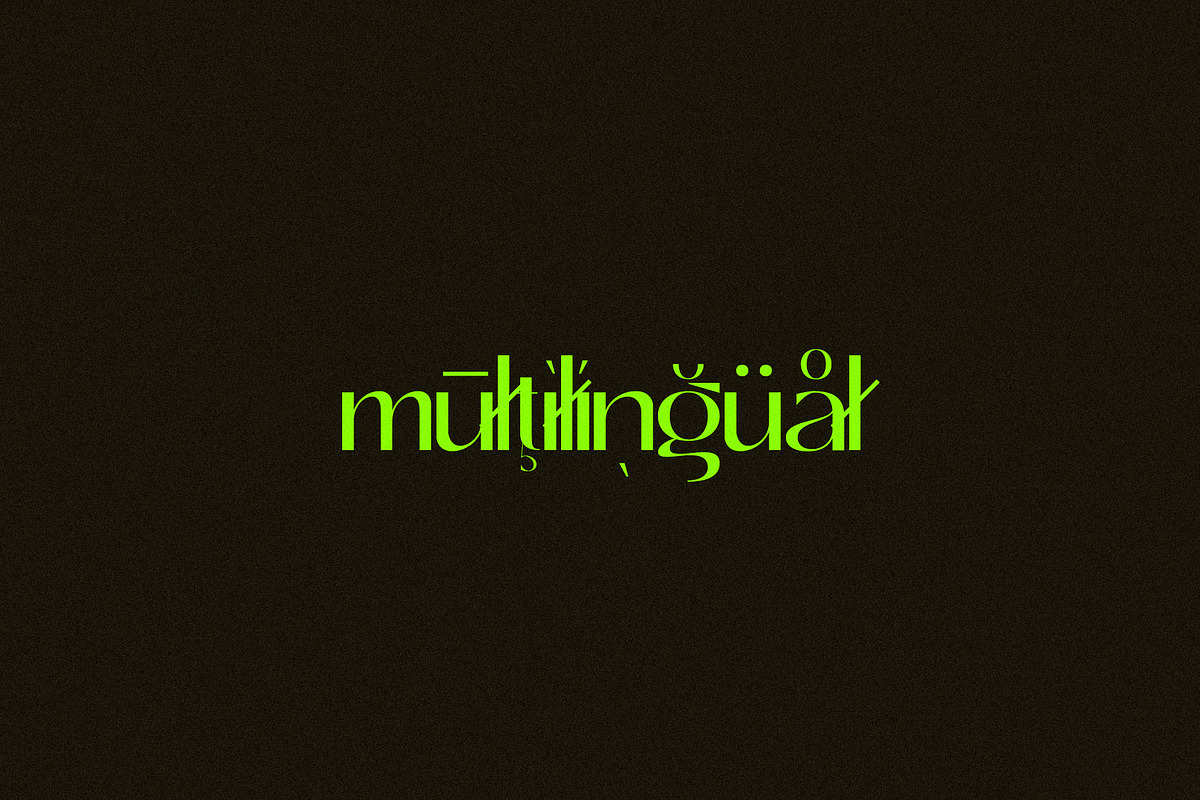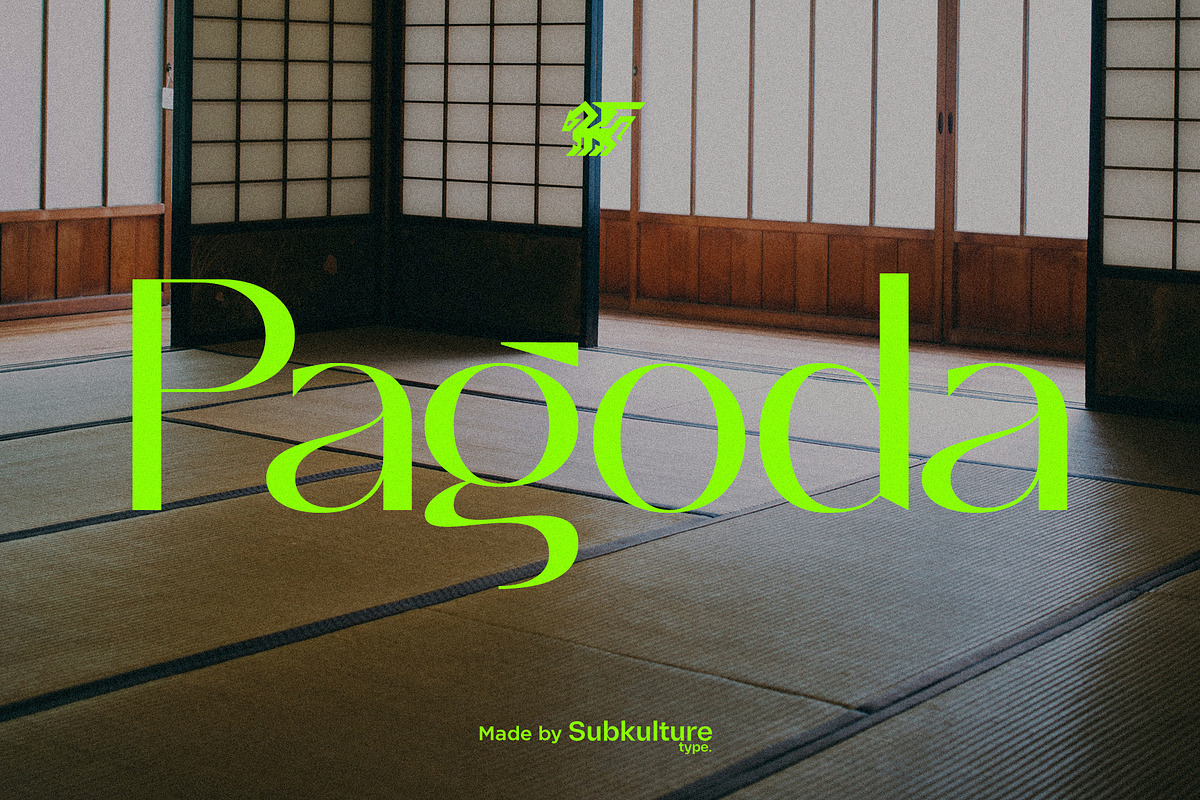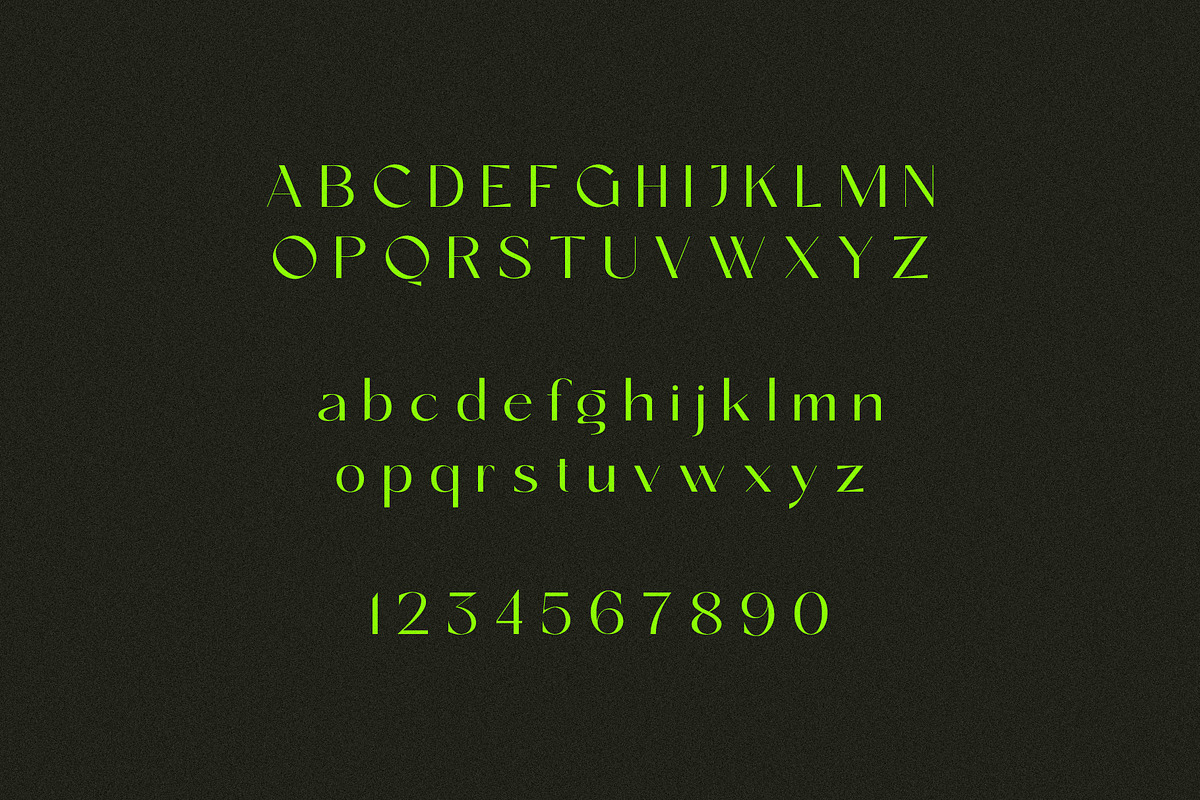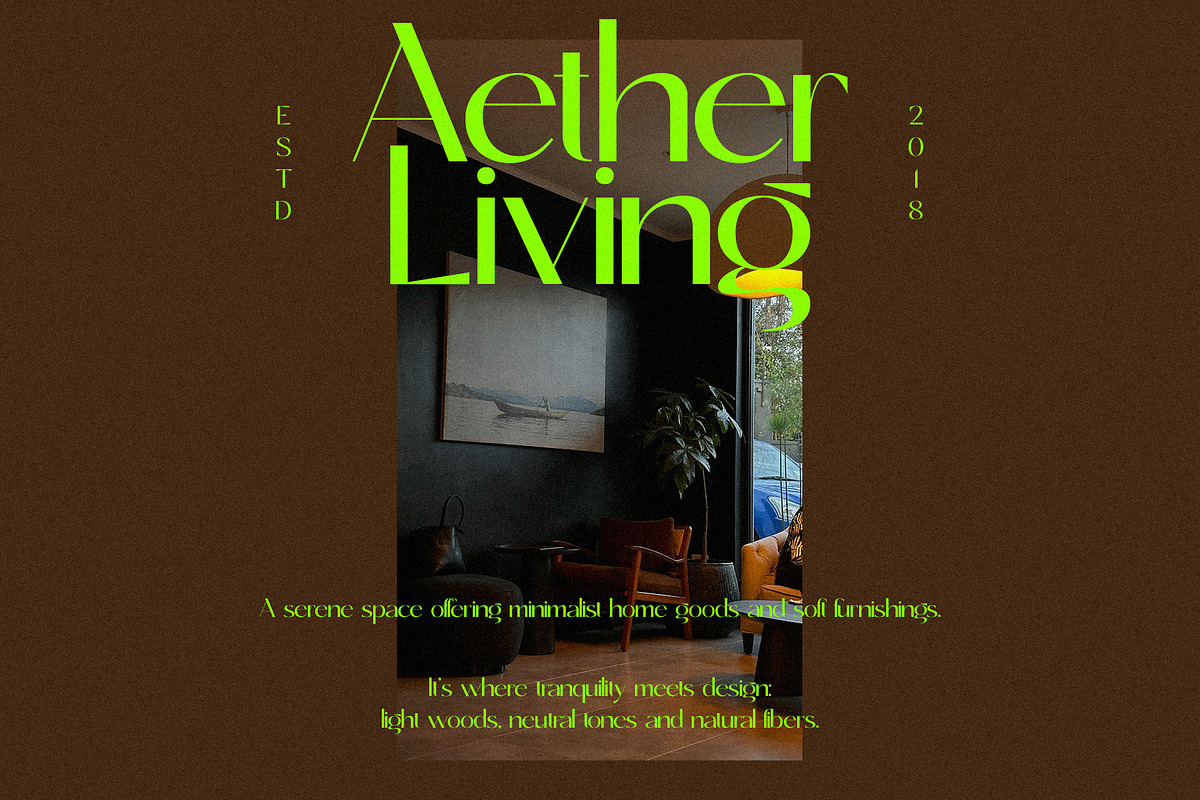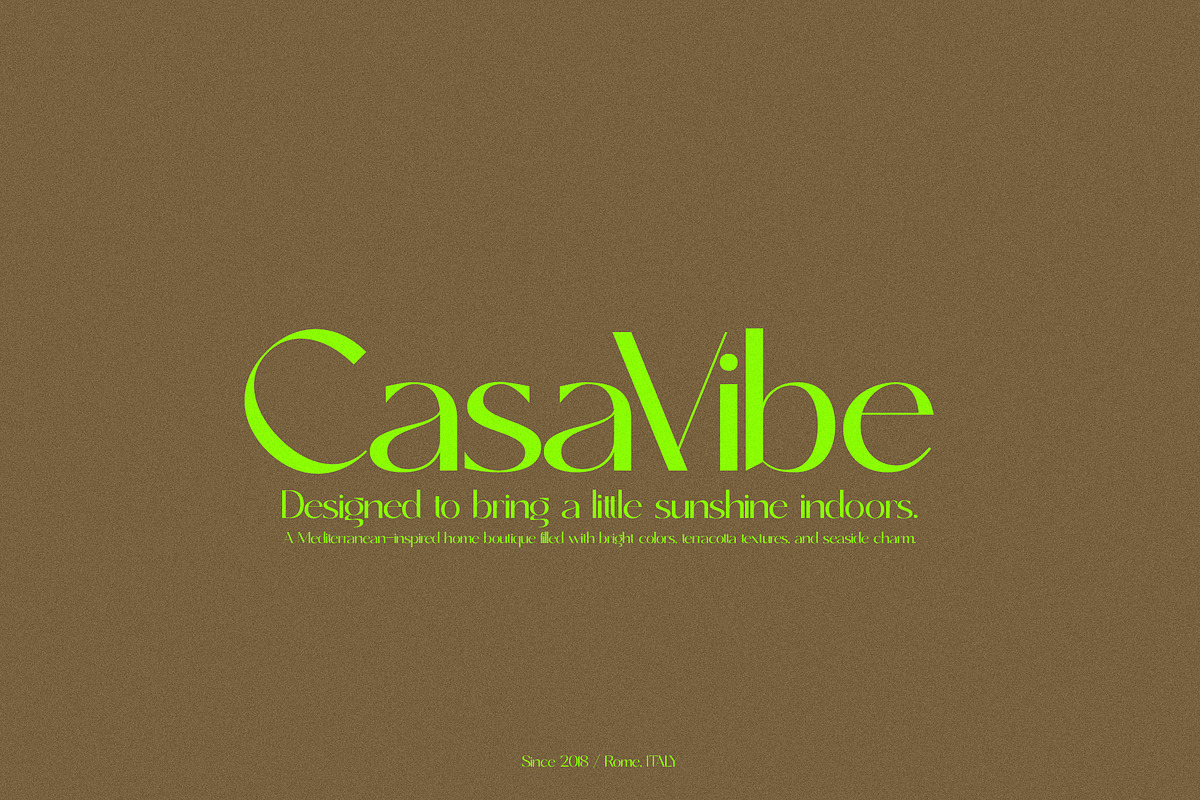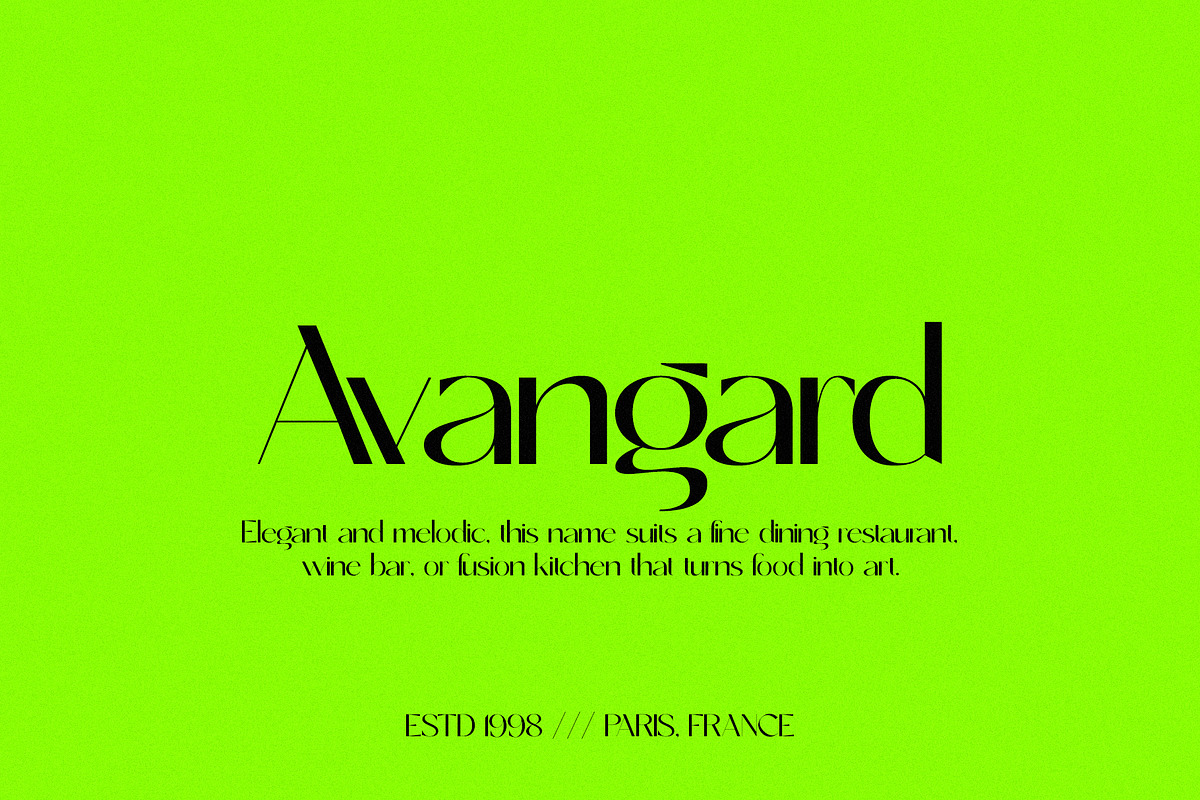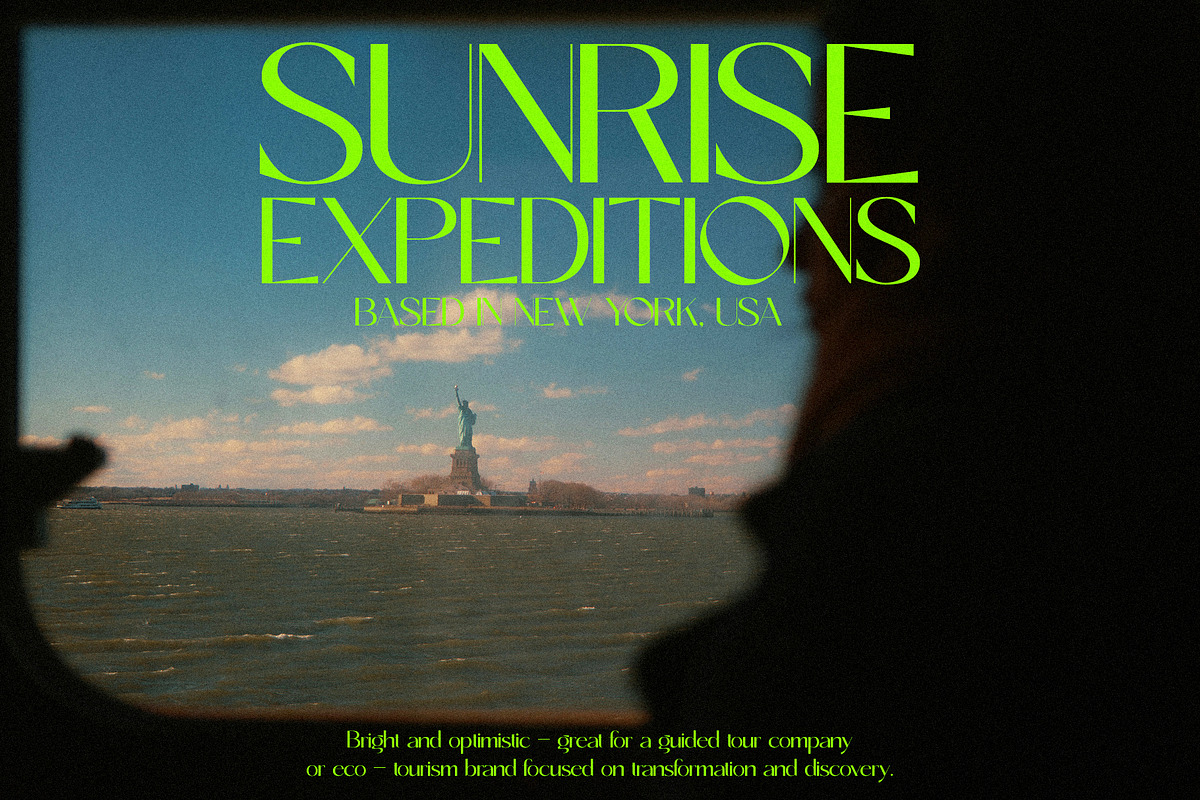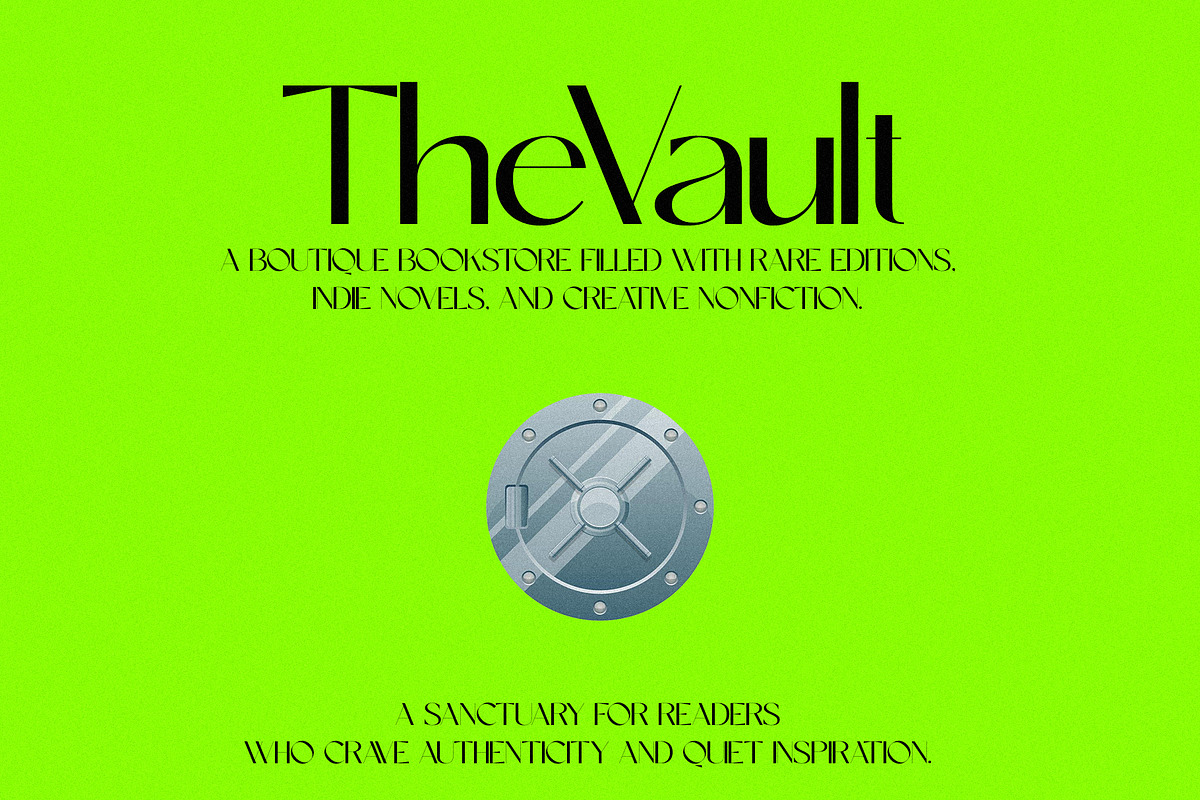
Pagoda - Modern Sans Serif
Pagoda - Modern Sans Serif is a sleek, contemporary font designed to bring sophistication and clarity to any project. With its clean lines, geometric structure, and balanced proportions, Pagoda merges timeless design with modern aesthetics. Perfect for both digital and print mediums, it offers versatility across headlines, logos, websites, and branding materials. Its minimalistic style ensures readability while maintaining a strong, stylish presence. Whether you’re designing a tech startup logo or crafting editorial content, Pagoda effortlessly enhances any design with a polished, professional look.
Pagoda features uppercase & lowercase letters, numbers & symbols, multilingual support, over 250+ glyphs.